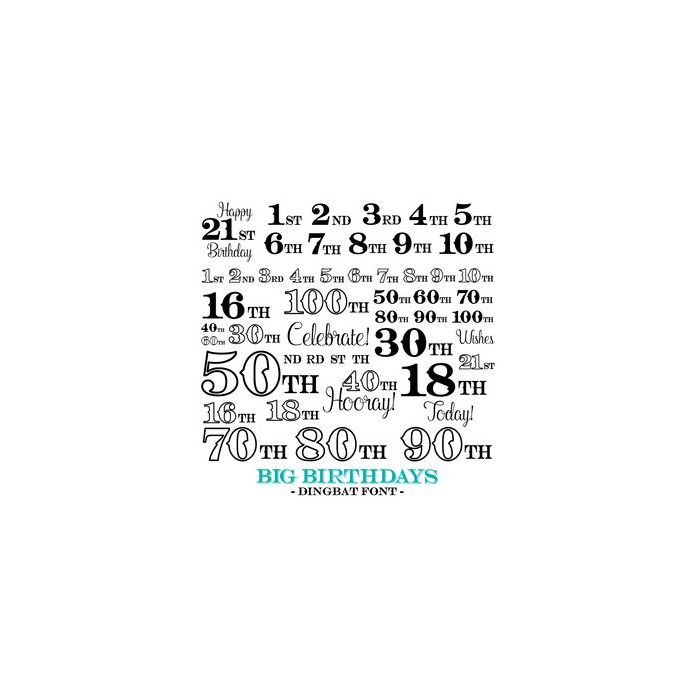
Big Birthdays Dingbat Font. Includes 52 large birthday monograms, add on words and phrases to make bold Birthday greetings! Perfect for celebrating those big Birthday milestones on cards, gift tags, scrapbooking, gifts and more!. All are assigned to an upper case letter starting with 'A' or can be accessed via glyphs. Volume 1 of this font is available here in the Silhouette store! For more design ideas, coordinating designs & products and inspiration, please visit my blog http://www.sarahhurleyblog.com